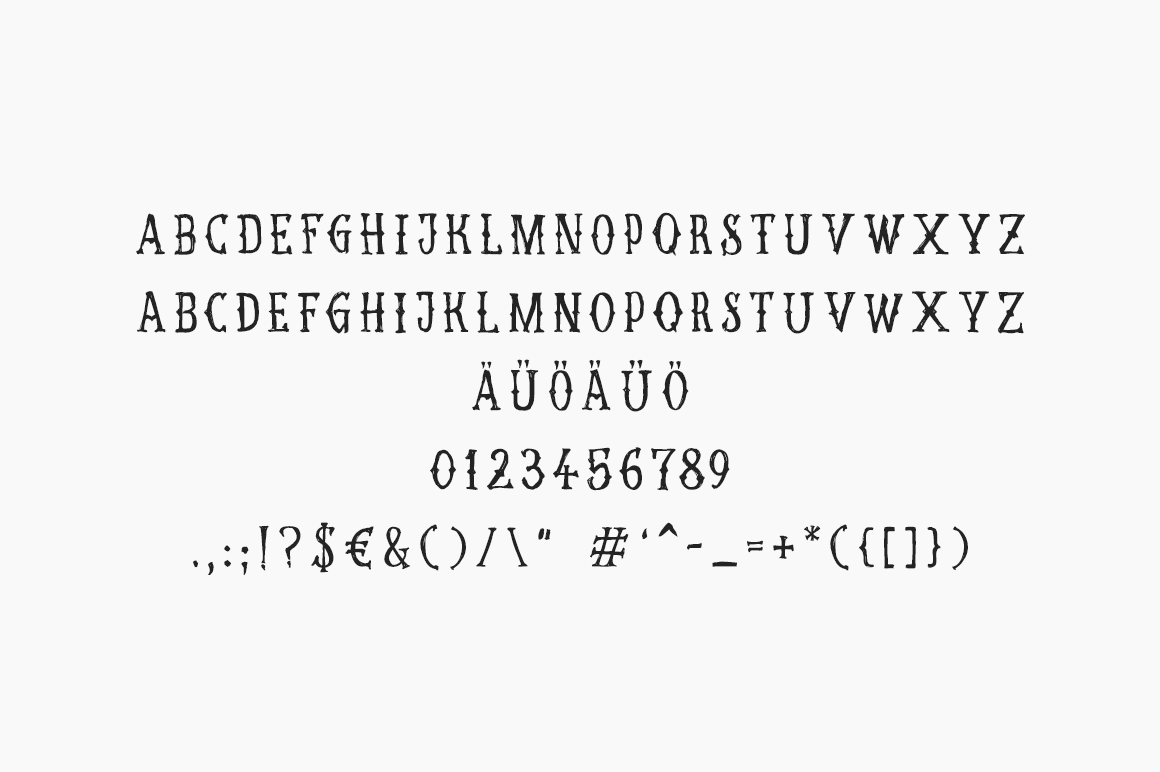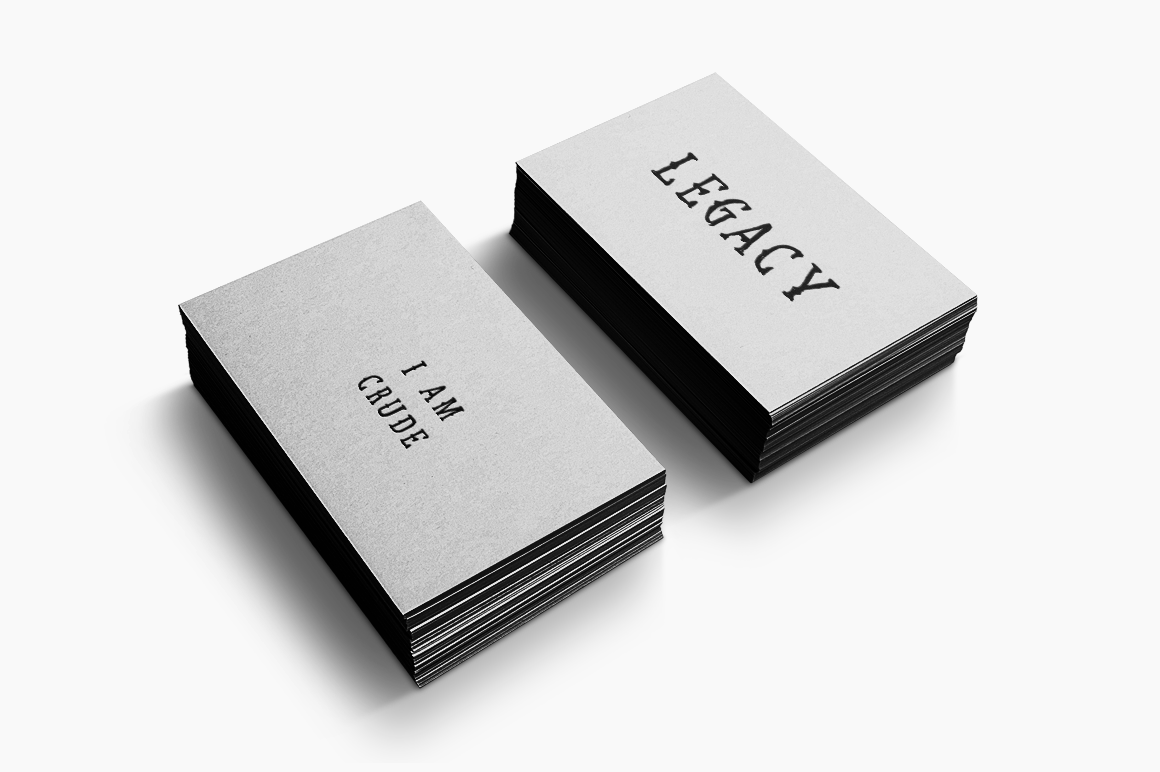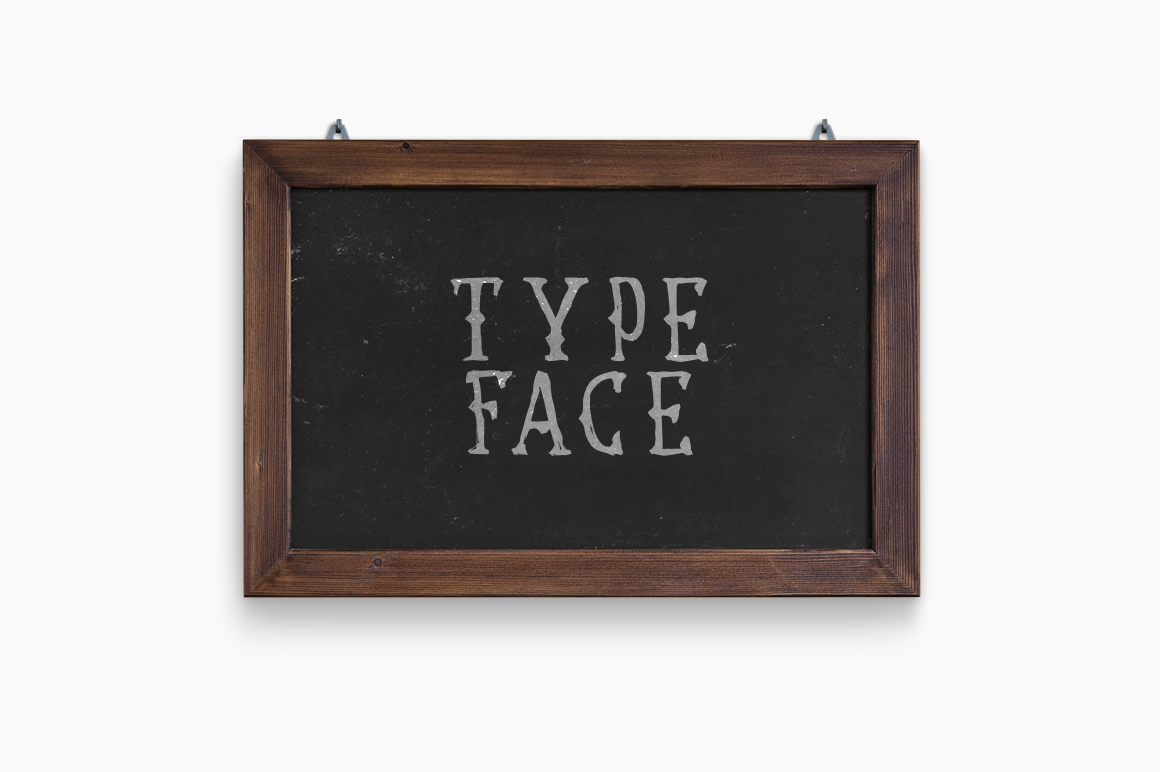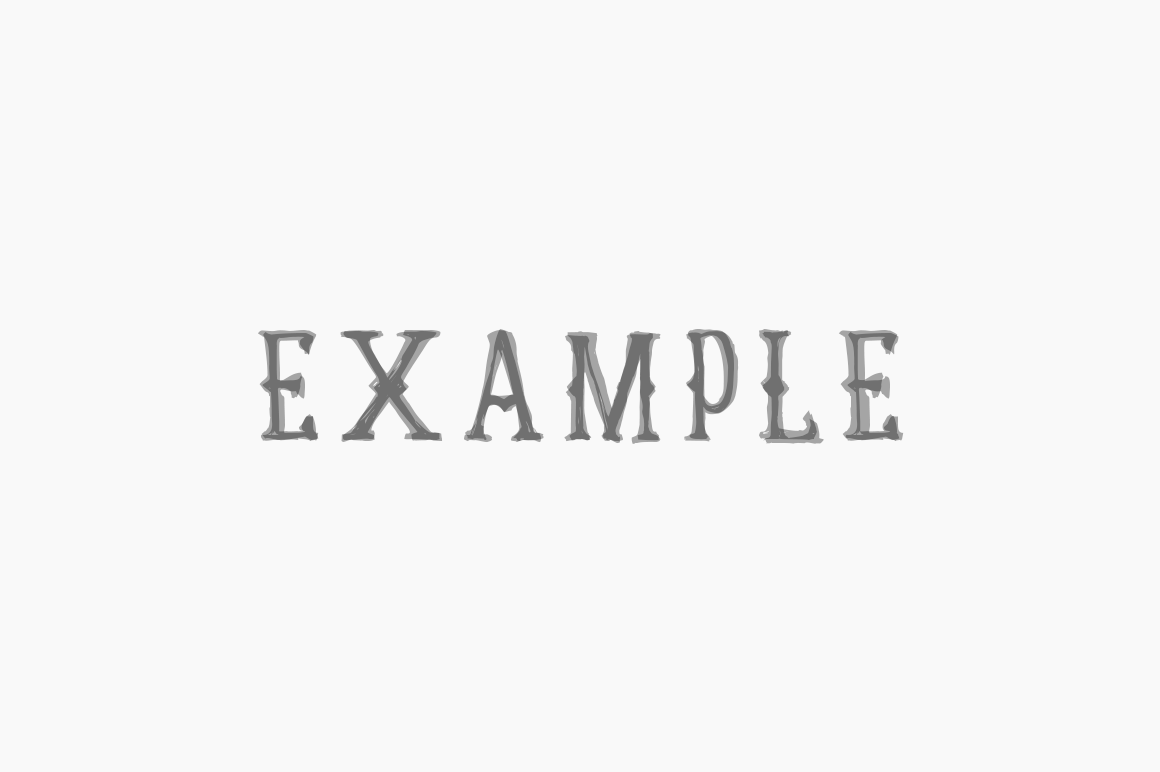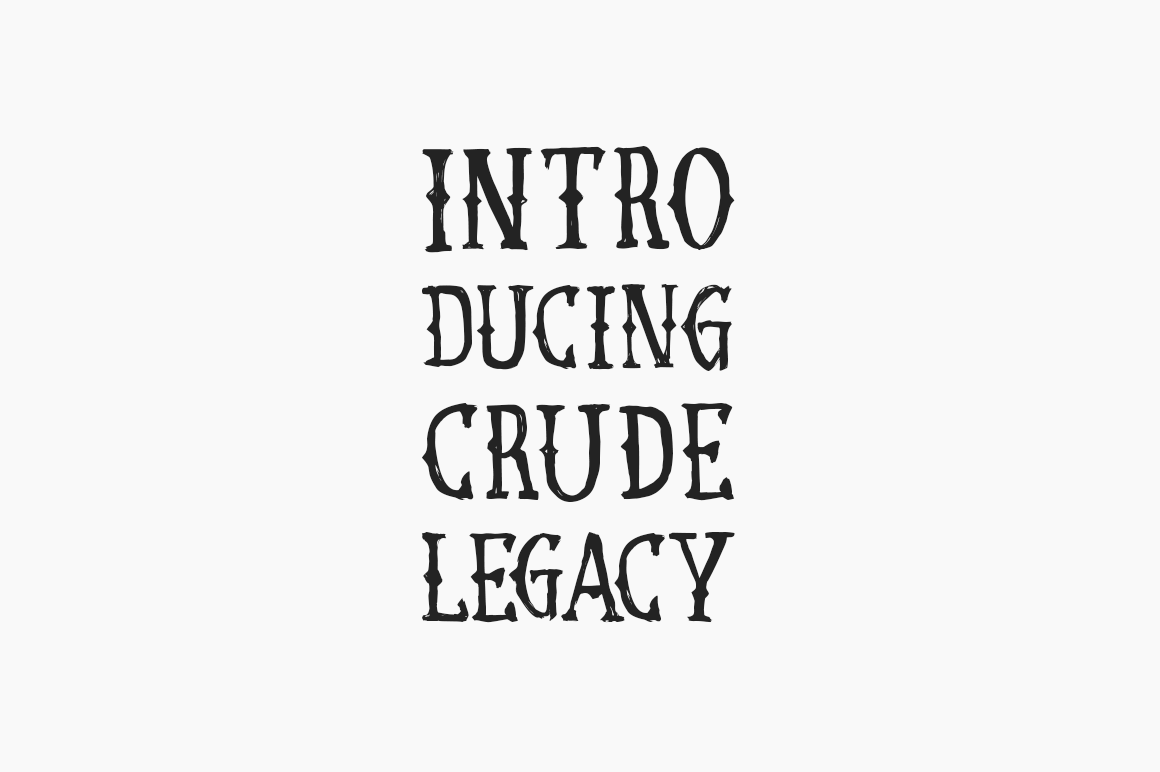
About Crude Legacy Font
Crude Legacy is a beautiful blackletter font inspired by vintage tattoo lettering. This font is ideal for logotypes and headlines, and looks great in modern, hipster styled designs.